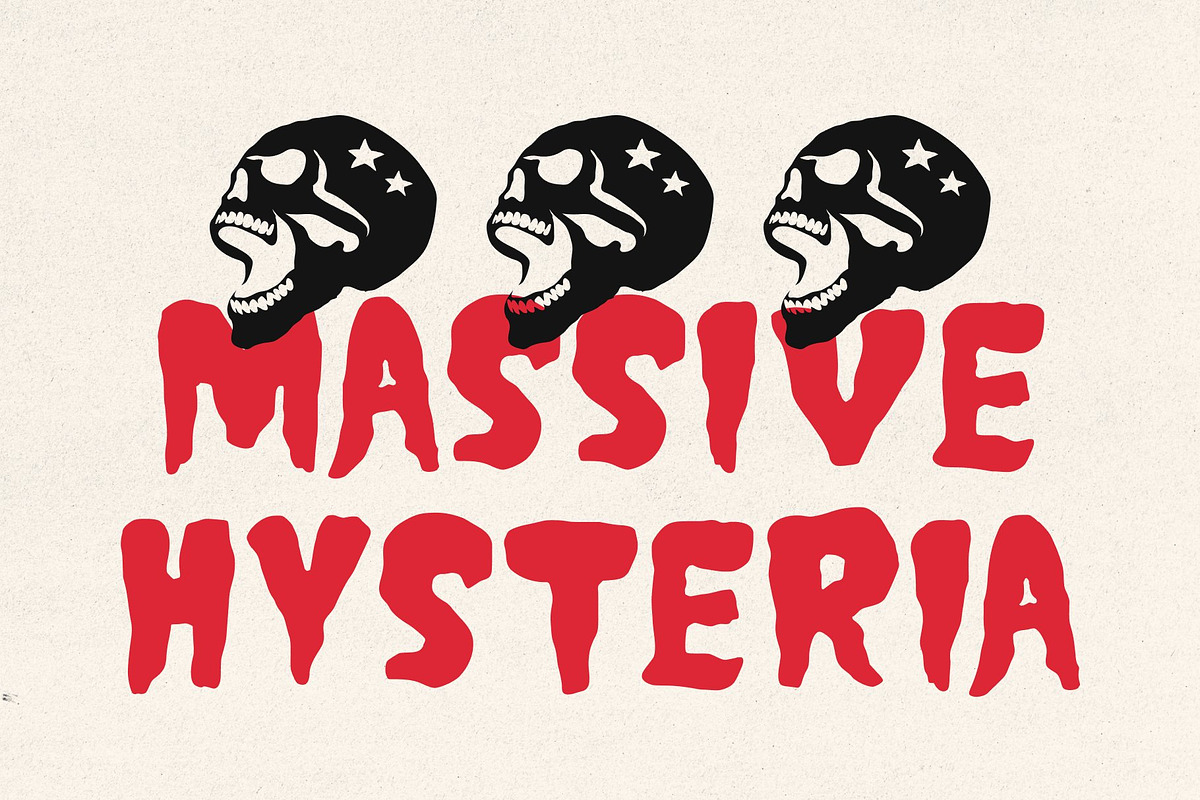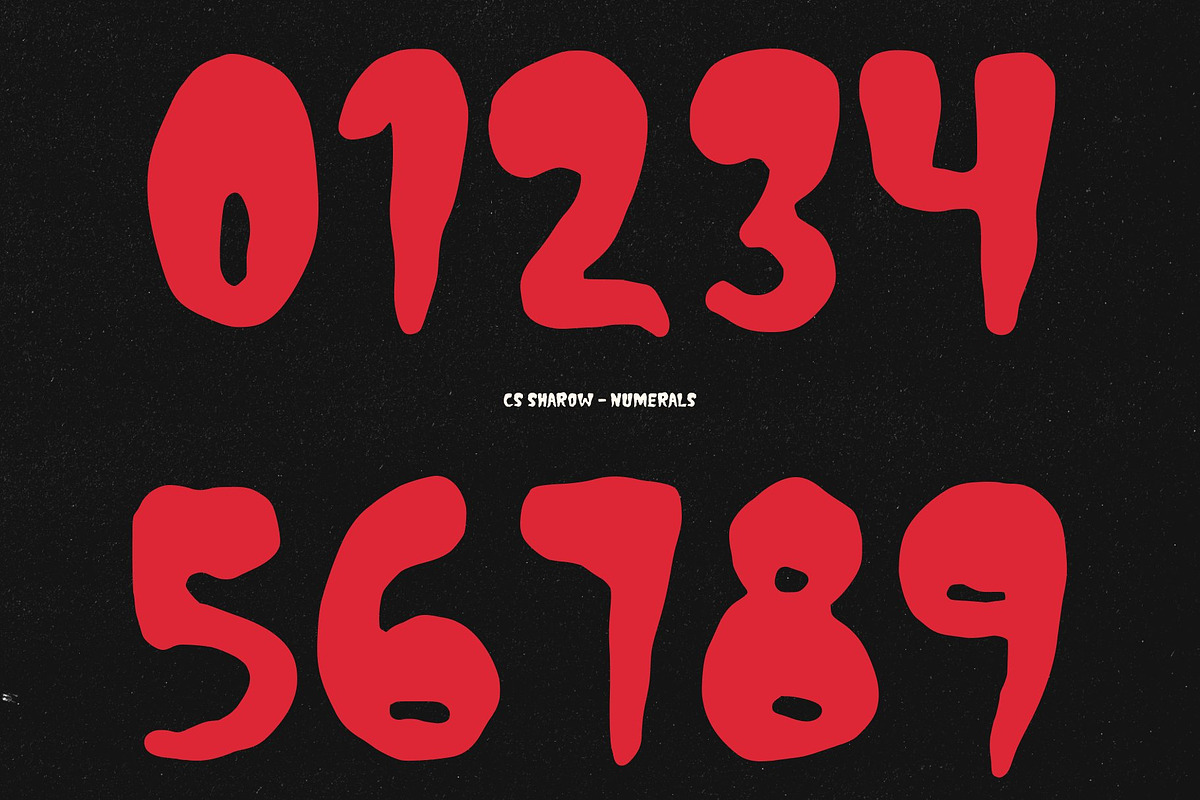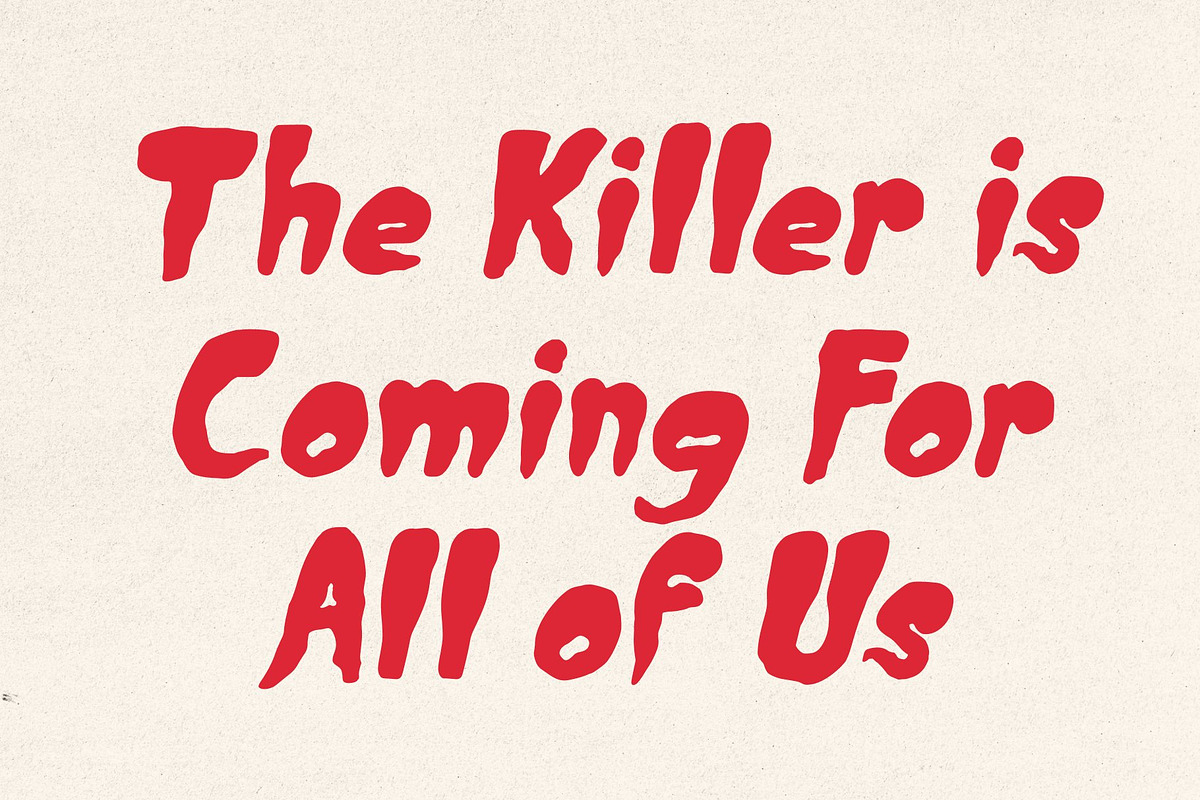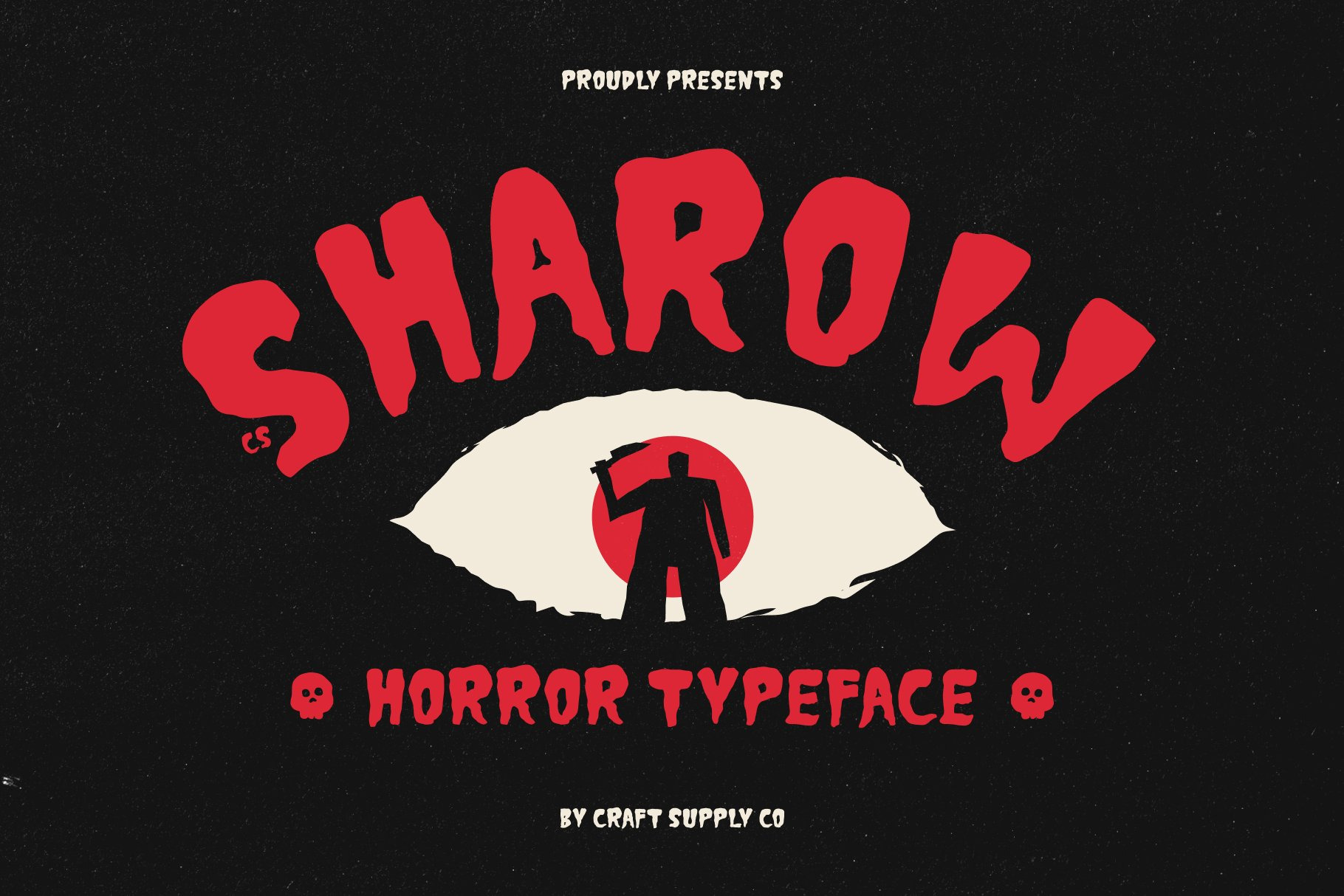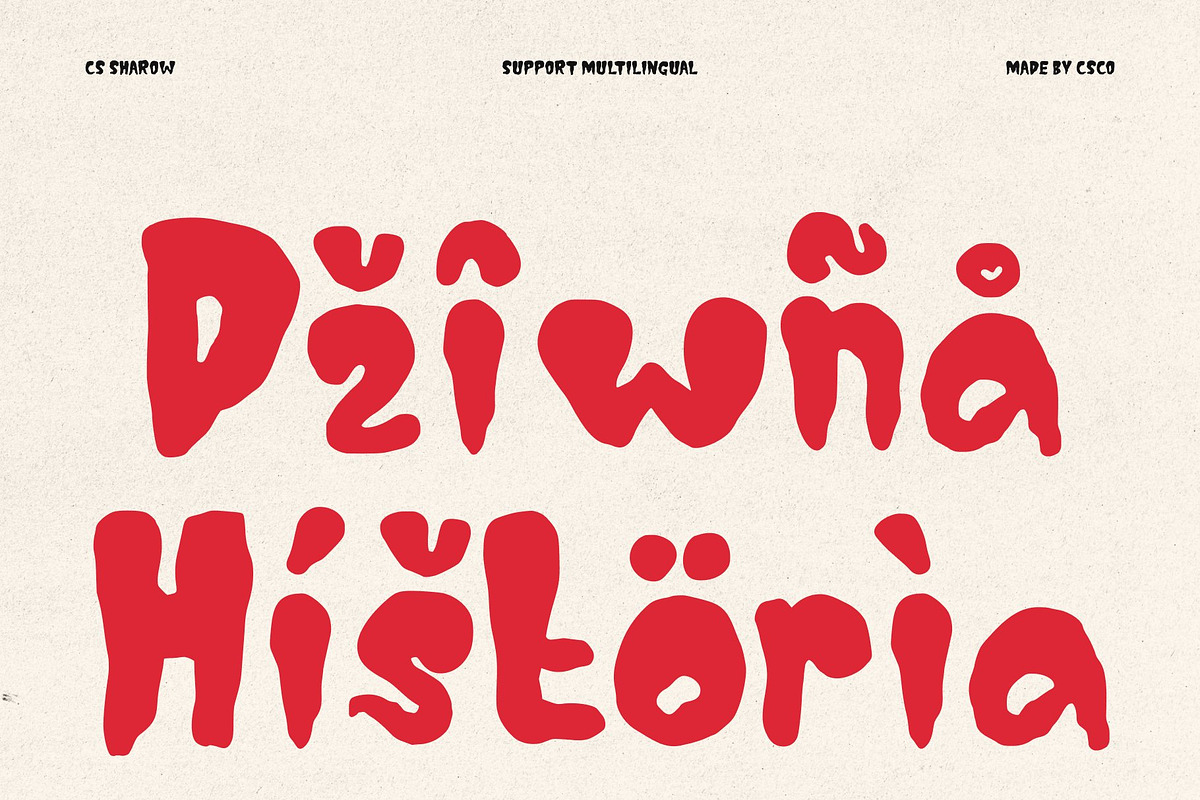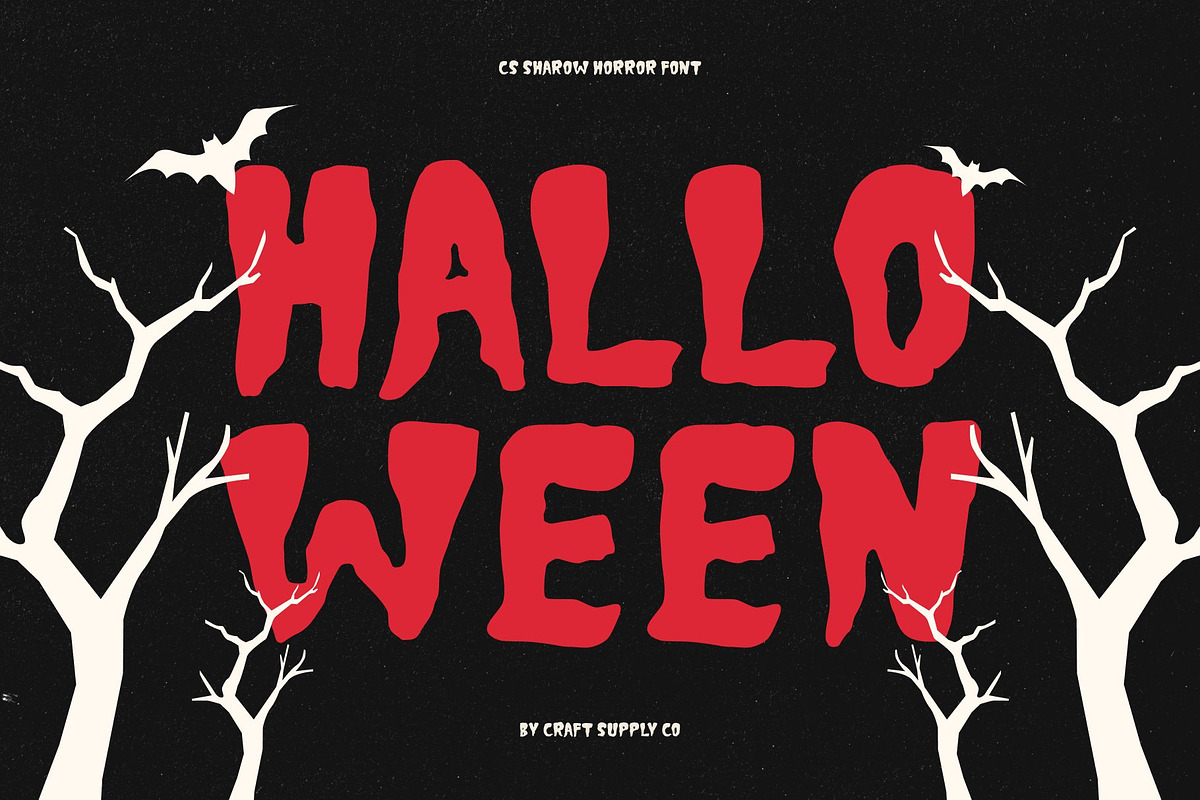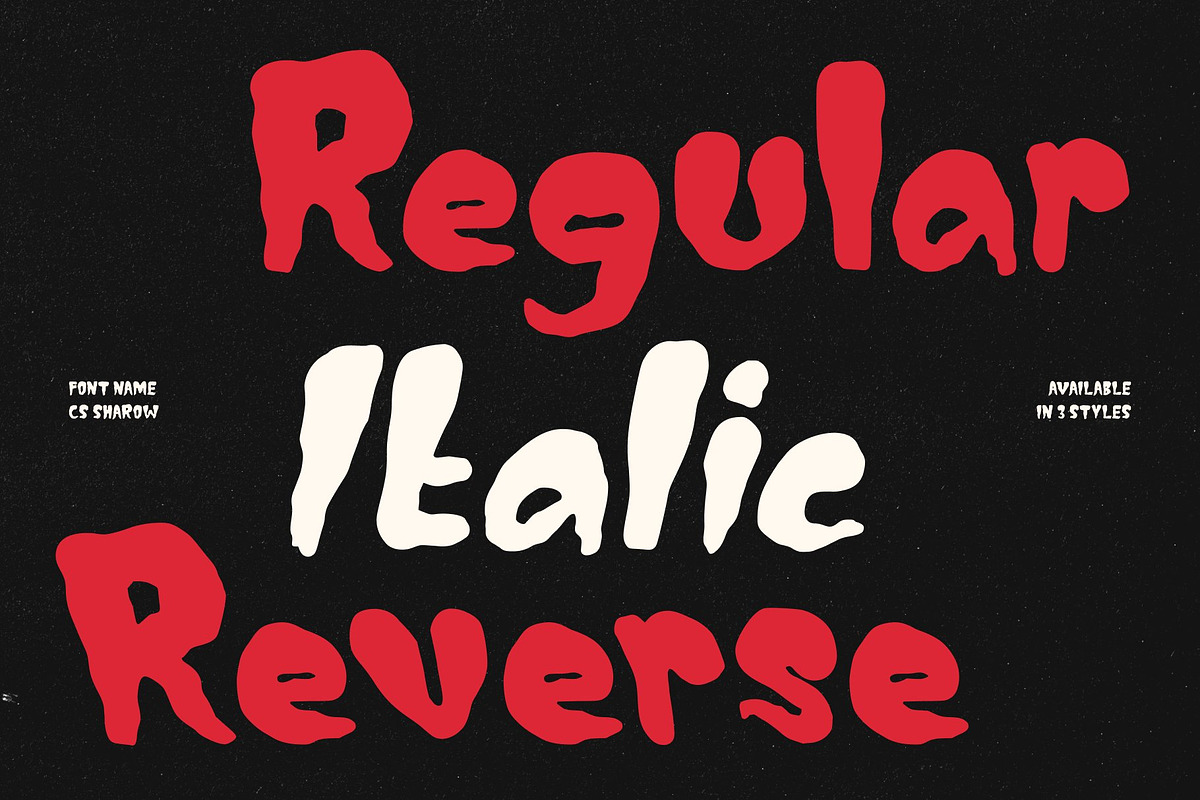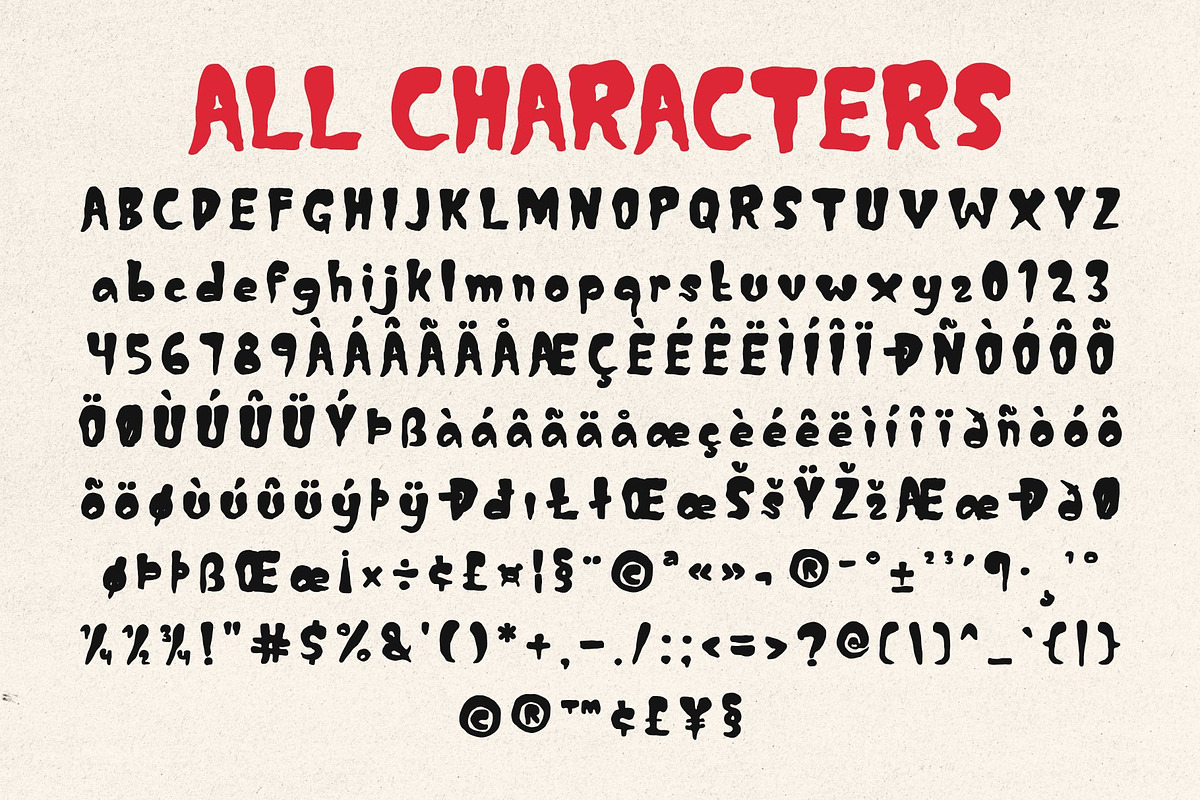
CS Sharow – Vintage Horror Font
Capture the eerie charm of late-night frights with CS Sharow, a bold display font designed to infuse your projects with an authentic retro-horror style. Drawing deep inspiration from vintage mid-nite Spook Show posters, classic pulp magazine covers, vintage horror comics, and traditional show card hand-lettering, this typeface brings an unmistakable cinematic tension to the page.
Whether you are crafting promotional materials for a seasonal Halloween event or designing an independent comic book cover, this lettering style instantly sets a captivating, chilling tone. The robust forms and spirited irregularities mimic the charming imperfections of mid-century print methods, ensuring your compositions carry genuine vintage character.
Take your seasonal branding, party invitations, and thematic merchandise to the next level by letting this expressive typography do the heavy lifting. The strong vertical presence and stylized contours command attention from across the room, making your headlines impossible to ignore.
Equip your design library with CS Sharow and unlock an endless stream of creative direction for autumn promotions, horror anthologies, and retro-themed apparel. This display tool empowers designers to channel classic print culture effortlessly while maintaining a fresh, commercially viable edge.
CS Sharow Regular
CS Sharow Italic
CS Sharow Reverse Italic